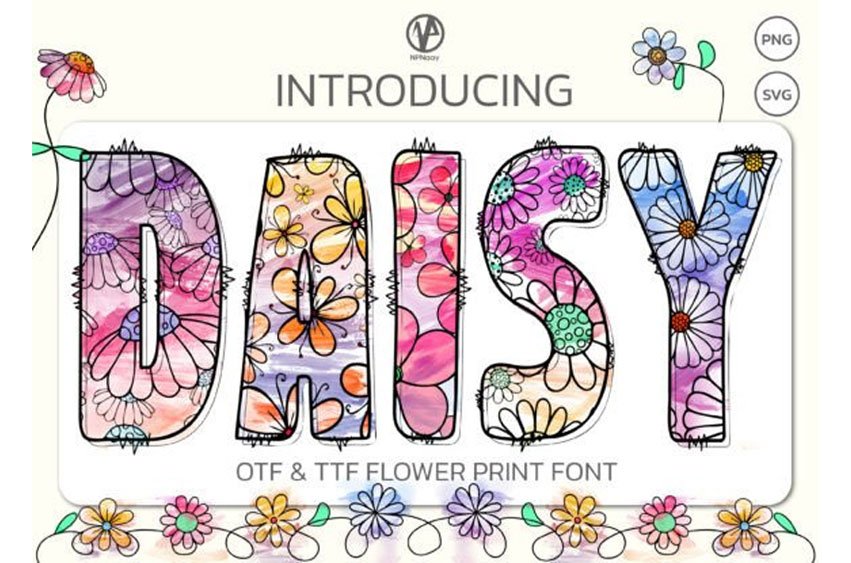
Daisy Flower Print Font is a friendly daisy display font.
It embodies playfulness and is the perfect choice for pretty much anything that requires a jolly touch.